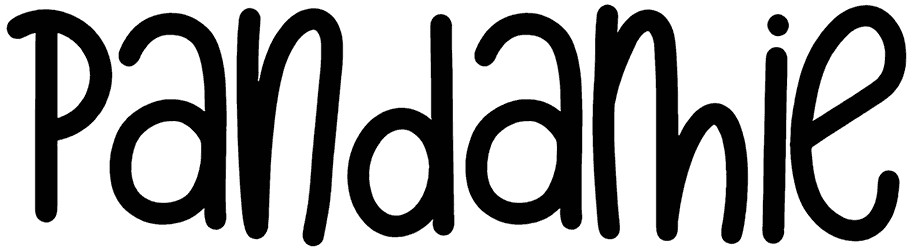
If you want to showcase a design that looks cute and energetic, this could be the right place. This doodle font, named Pandamie, consists of a soft and playful hand-lettered face and conveys a sweet vibe. A full cover of characters will provide a good chance for you to adorn your novel designs, such as flyers, postcards, school projects, or the like, with this handwritten font.